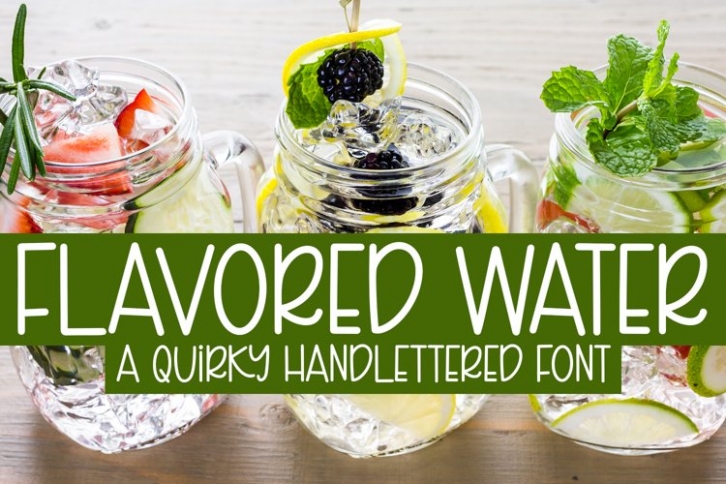
Flavored Water is a beautiful font that was designed by plusstore. It's a great choice for designers and creatives who need such a font. It was released on May 7, 2022 and the file size is 15.90 MB. Flavored Water may give a more youthful, expressive and casual look to your project. It is a very beautiful, refined, elegant, and high-quality font.